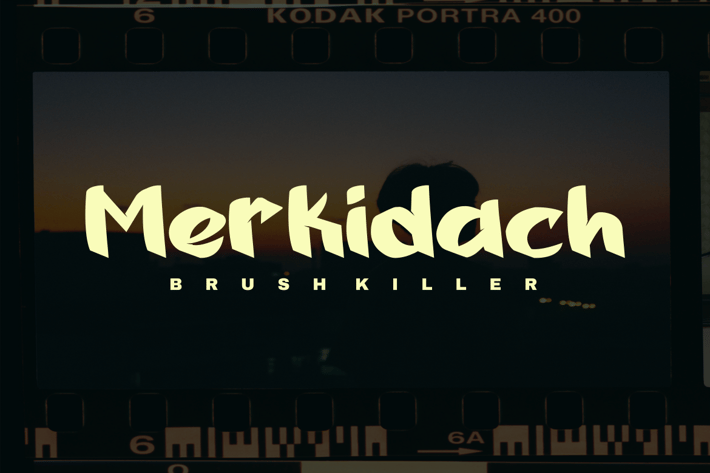
Merkidach - Display Font
Introducing Merkidach , a brush handwritten display font.
So perfect for you who needs a typeface for logo designs, magazine, social media, brochure, and many more.